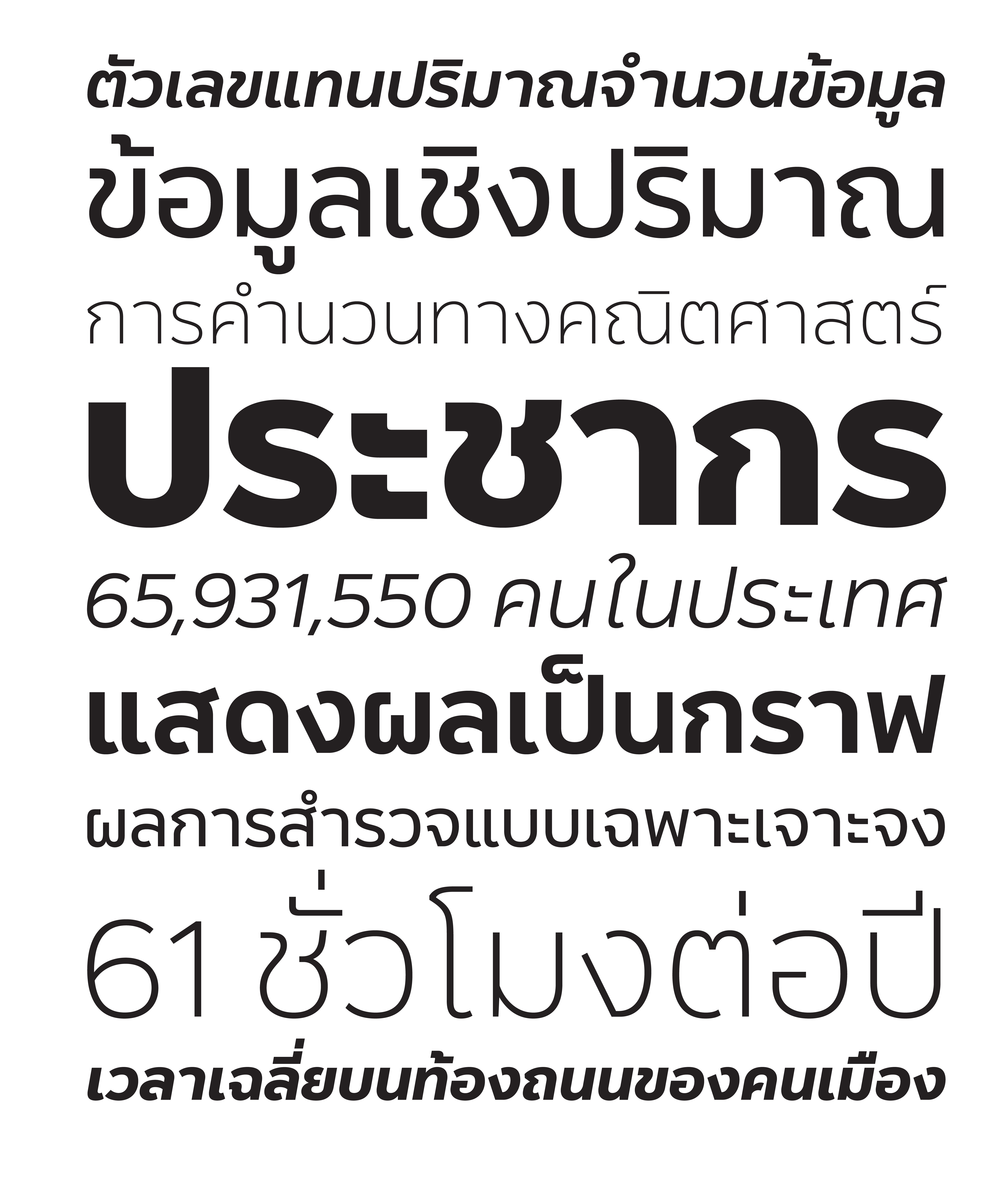
Stidti
Stidti typeface is a Thai loopless terminal typefaces that included 5 weights, 5 styles such as Thin, Light, Regular, SemiBold, Bold and their italic. This typefaces is characterized by some extended characteristics, its open part of negative space and its overall width make it highly legible and readable at large to small size. Stidti is an ideal font family for printed matter, publication, banner, branding, signage and the openness also helps this font to be a good performer on the screen as well.
Name : Stidti
Weight : Thin, Light, Regular, SemiBold, Bold, Thin Italic, Light Italic, SemiBold Italic and Bold Italic
Language : Latin 1 / Thai
Designer : Parin Rungpattarathakun
Award : Granshan Type Design Competition 2017